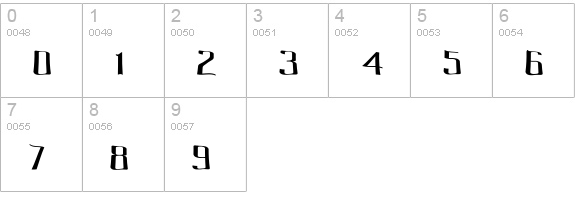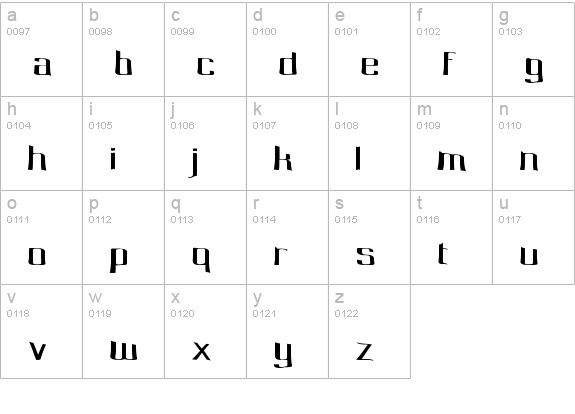
Introducing the captivating and futuristic Pecot Spacewarp font! This innovative typeface combines sleek lines and dynamic curves to create a truly out-of-this-world design. Perfect for projects that require a modern and sci-fi aesthetic, Pecot Spacewarp adds a touch of sophistication and intrigue to any text it graces. What makes Pecot Spacewarp even more enticing is that it is completely free to download at FontsMarket.com. Yes, you read that right - this stunning font can be yours at no cost! Whether you're working on a graphic design project, branding materials, or simply want to add a unique flair to your personal creations, Pecot Spacewarp is the perfect choice. Don't miss out on the opportunity to elevate your designs with this remarkable font. Download Pecot Spacewarp today and let your creativity soar to new heights!